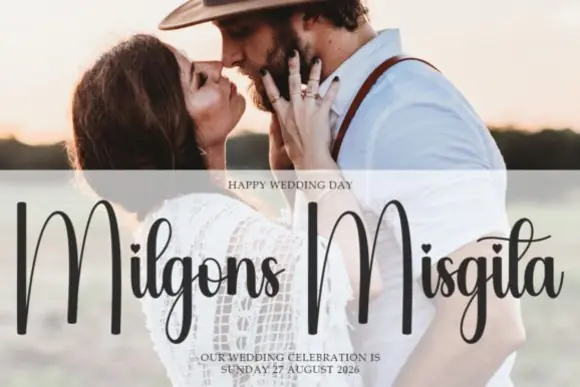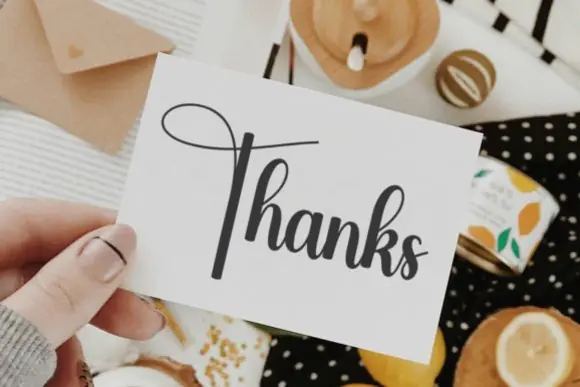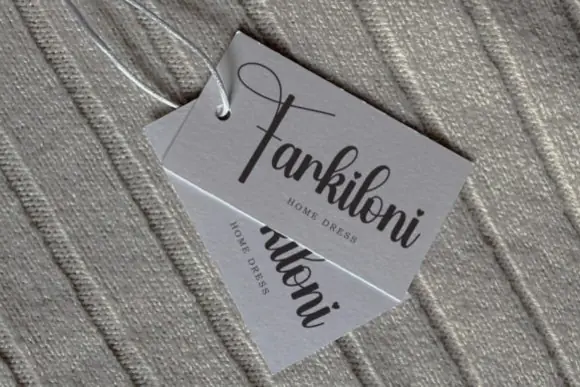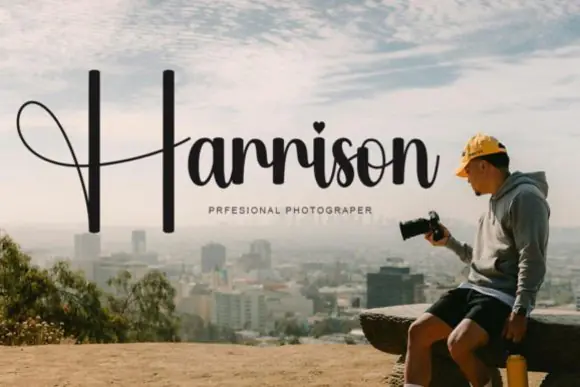
Signature Font | Elegant Cursive Handwritten Typeface for Logos, Branding, Wedding Designs, Greeting Cards, Fashion Lookbooks & Luxury Projects
Create elegant, romantic, and beautifully expressive designs with Signature Font, an enchanting cursive handwritten typeface designed with a tender, fluid style and graceful handwritten flourish. Its soft, stylish letterforms bring a perfect balance of playful charm, romantic beauty, and relaxed sophistication to your creative projects.
Signature Font is ideal for designers, wedding creators, boutique brands, small business owners, crafters, digital sellers, and print-on-demand creators who want to add a premium handwritten touch to their designs. It works beautifully for distinctive branding, elegant logos, wedding stationery, greeting cards, fashion lookbooks, marketing promotions, product labels, packaging, social media graphics, quote designs, and more.
Its luxurious yet casual personality makes it suitable for projects that need to feel refined without looking too formal. Whether you are designing a boutique logo, romantic invitation, heartfelt greeting card, stylish fashion layout, or promotional graphic, Signature Font helps your typography look polished, memorable, and full of character.
• Elegant logo design
• Distinctive branding
• Wedding invitations
• Wedding stationery
• Greeting cards
• Fashion lookbooks
• Marketing promotions
• Product labels
• Luxury packaging
• Quote designs
• Boutique business branding
• Cricut and Silhouette crafts
• Romantic digital artwork
Design Style:
Signature, cursive, handwritten, elegant, romantic, fluid, tender, playful, luxurious, sophisticated, graceful, stylish, soft, and charming.
Use Signature Font to transform ordinary text into elegant handwritten artwork and give your projects a beautiful signature-style finish.